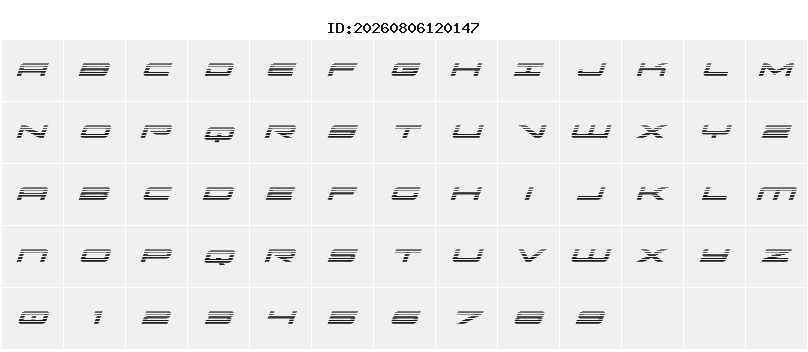
Oramac Gradient Italic Preview
About Oramac Gradient Italic.ttf
Oramac Gradient Italic.ttf is a modern, elegant sans-serif font designed for ultimate readability and visual harmony. Perfect for branding, headlines, web design, and print materials.